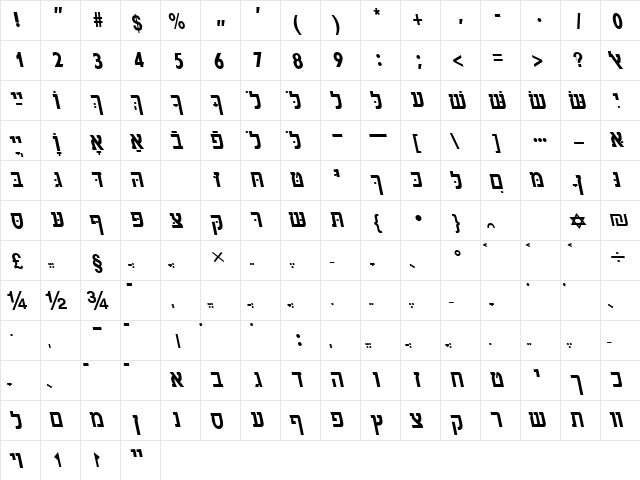
HebrewAaronSSK BoldItalic Font Preview
HebrewAaronSSK BoldItalic
Design Context for HebrewAaronSSK Typeface
HebrewAaronSSK offers clean, dependable letterforms without strong stylistic allegiance, making it a practical choice for designers who need flexibility. The slanted form adds forward momentum and visual energy. Its bold stroke weight gives it real presence on the page.
Pro Tip: Try HebrewAaronSSK for annotation and caption copy alongside an upright companion — the contrast in angle creates a dynamic but ordered typographic system.